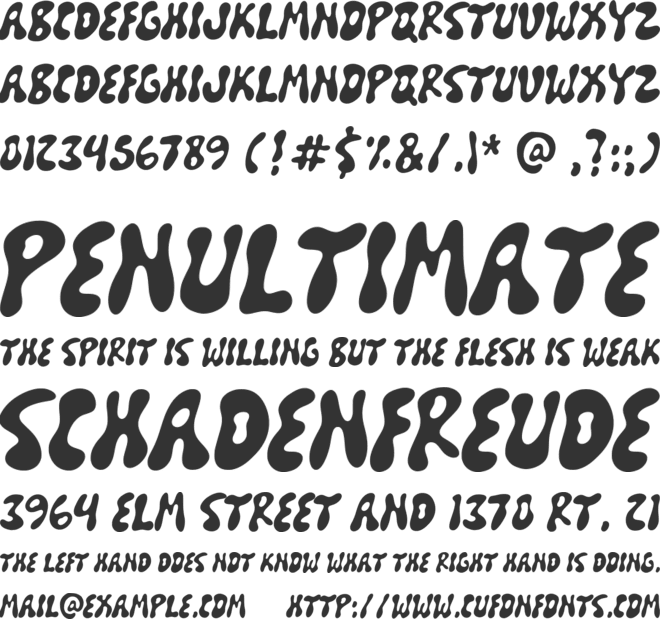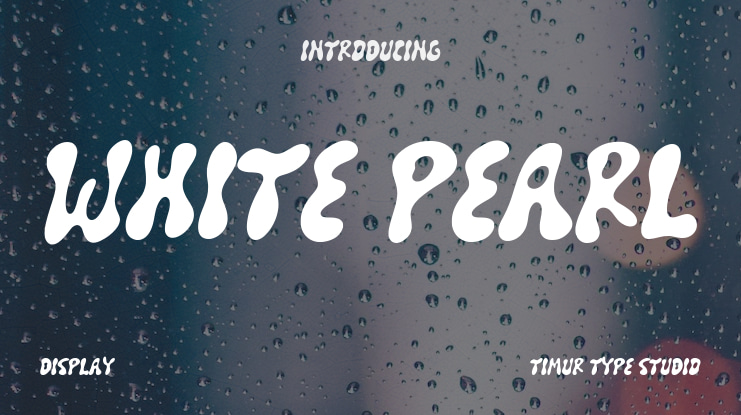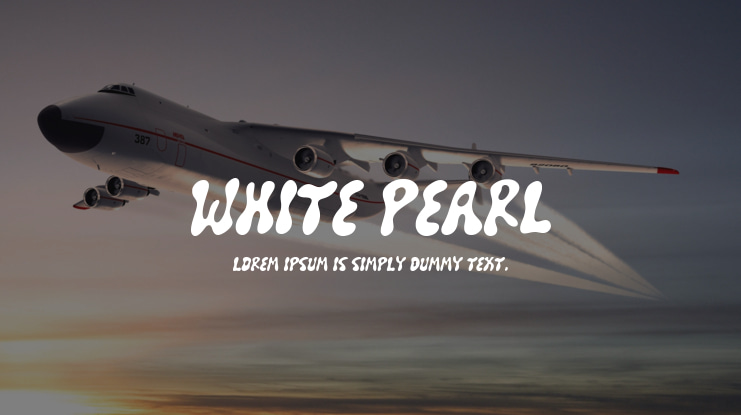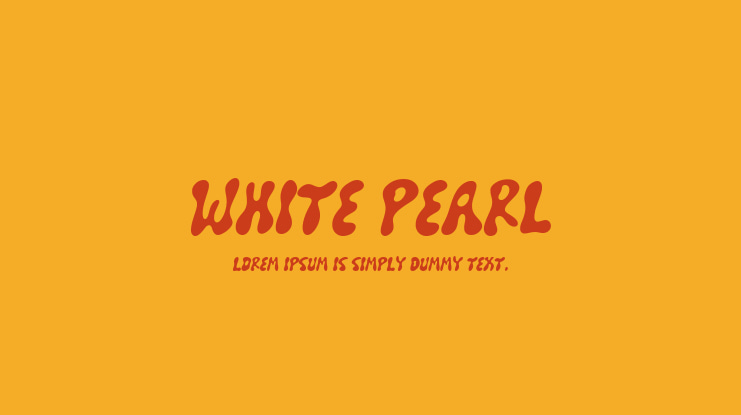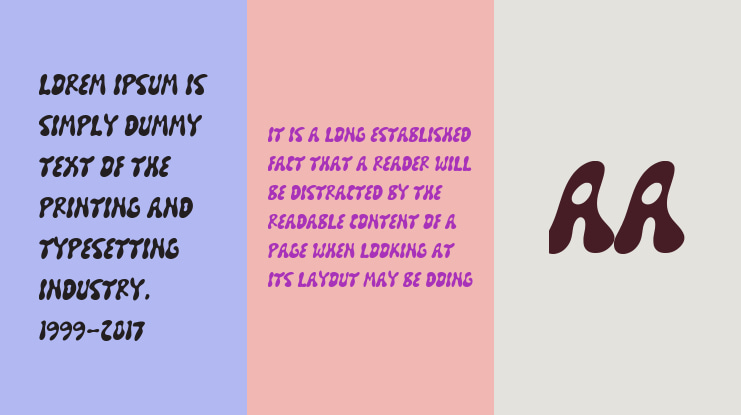
Introduced by Timurtype Studio!
White Pearl is a Groovy Font
This font is a striking display font that exudes elegance and modernity. With its sleek lines and bold curves, each character is crafted to command attention while maintaining a sense of sophistication. Inspired by the luster of pearls, this font carries a timeless quality, making it ideal for fashion branding, luxury products, and high-end editorial design. Whether used in headlines, logos, or advertisements, "White Pearl" adds a touch of refinement and charm to any creative project, making it a standout choice for designers seeking a blend of style and grace in their typography.
White Pearl also supports multilingualism
-Full Set of standard alphabet and punctuation